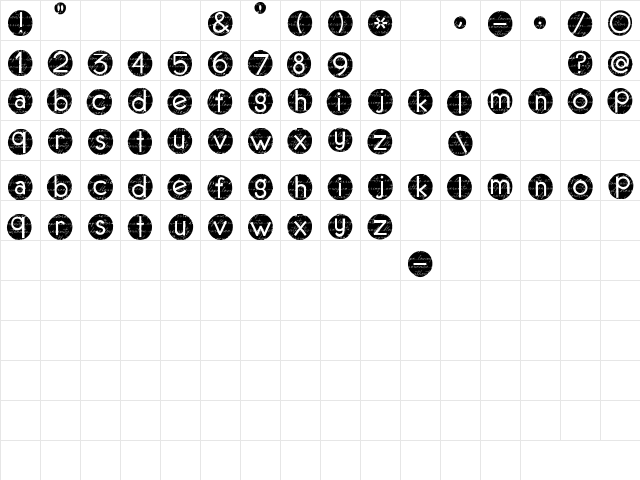
2Peas Ocean Crossing 2Peas Ocean Crossing Free Font
2Peas Ocean Crossing 2Peas Ocean Crossing
Style: 2Peas Ocean Crossing
Foundry: High-Logic
Designer: High-Logic - Erwin Denissen
Design Context for 2Peas Ocean Crossing
2Peas Ocean Crossing is a composed and adaptable typeface that performs quietly and consistently across a wide range of design contexts.